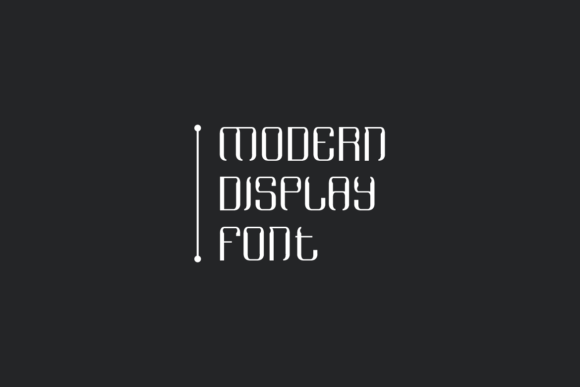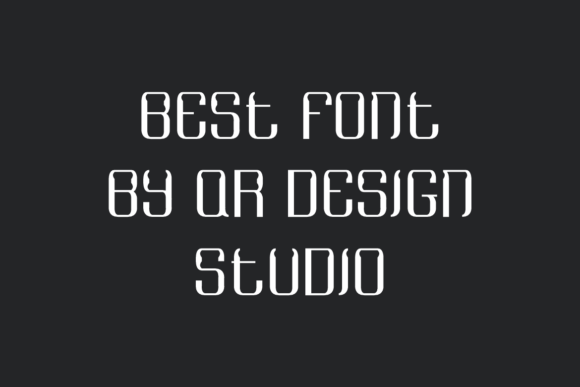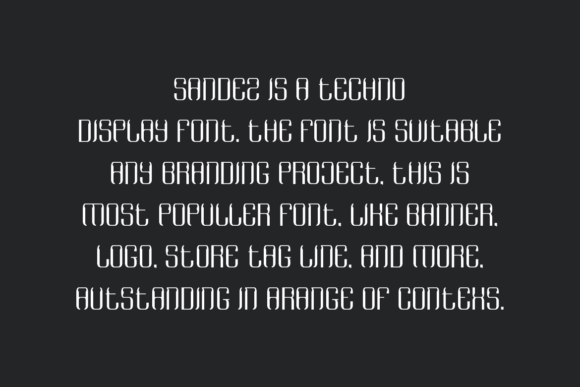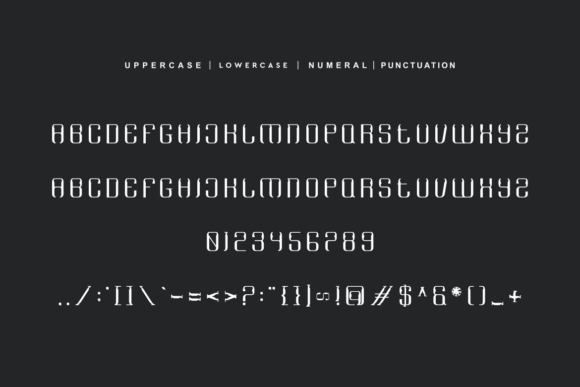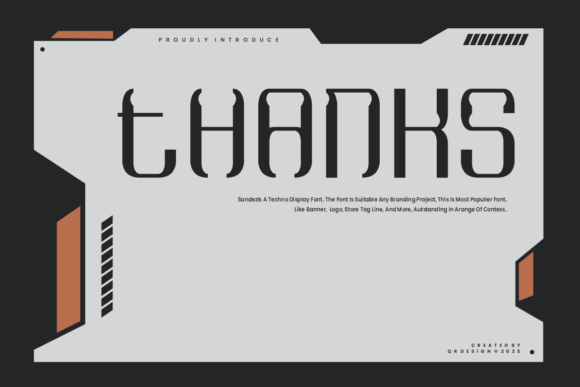
Introduction to Sandez Font
Have you ever stared at a blank canvas, unsure of where to start a new creative project? You’ve got an idea, but the perfect design resource seems just out of reach. For designers, finding the right font can be the difference between a good design and a great one. That’s why we’re excited to introduce you to the Sandez Font – a bold and assertive sans serif font that’s sure to elevate any creation.
With its sleek and modern aesthetic, the Sandez Font is perfect for designers looking to add a touch of sophistication to their projects. Whether you’re working on a logo, a brochure, or a website, this font is sure to make a statement. And the best part? It’s available for free download, so you can start using it right away.
From its high-quality design to its transparent background, the Sandez Font is a valuable addition to any designer’s library. So why wait? Dive in and discover the possibilities of the Sandez Font for yourself.
Key Features of Sandez Font
- High-quality font design ideal for creative projects, including graphics, logos, and typography.
- Unique characteristics, such as elegant and modern design elements, make it an excellent choice for creative projects.
- Perfect for use in digital design, including websites, social media, and advertising, due to its high-quality and modern design.
Honest Review: Sandez Font
As a designer, I’m always on the lookout for high-quality design resources to elevate my creative projects. Recently, I had the chance to try out the Sandez Font, and I must say it’s been a great addition to my design toolkit.
- High-quality design: The Sandez Font boasts crisp and clean lines, making it perfect for various design applications.
- Transparent background: This feature allows for seamless integration with other design elements, giving me more flexibility in my creative projects.
- Limited character set: While the font is available in various weights and styles, the character set is somewhat limited, which may not be ideal for complex designs.
- Not suitable for body text: The Sandez Font is better suited for headings and titles, as it may be difficult to read in larger blocks of text.
Overall, the Sandez Font is a great design resource for any creative project. While it has its limitations, it’s a high-quality font that can add a touch of elegance to any design. I’d definitely recommend it for designers looking to elevate their work.
The Sandez Font is a high-quality, free download design resource perfect for creative projects. It features a transparent background, making it ideal for overlaying on images or using as a standalone element.
Tips for Getting the Most Out of Sandez Font
For the best results, use the Sandez Font in conjunction with other design elements, such as images and graphics. Experiment with different font sizes, colors, and styles to create a unique look.
The Sandez Font is perfect for a variety of creative projects, including logos, social media graphics, and brochures. Its transparent background makes it easy to overlay on images or use as a standalone element.
Q: Can I customize the Sandez Font to fit my specific design needs?